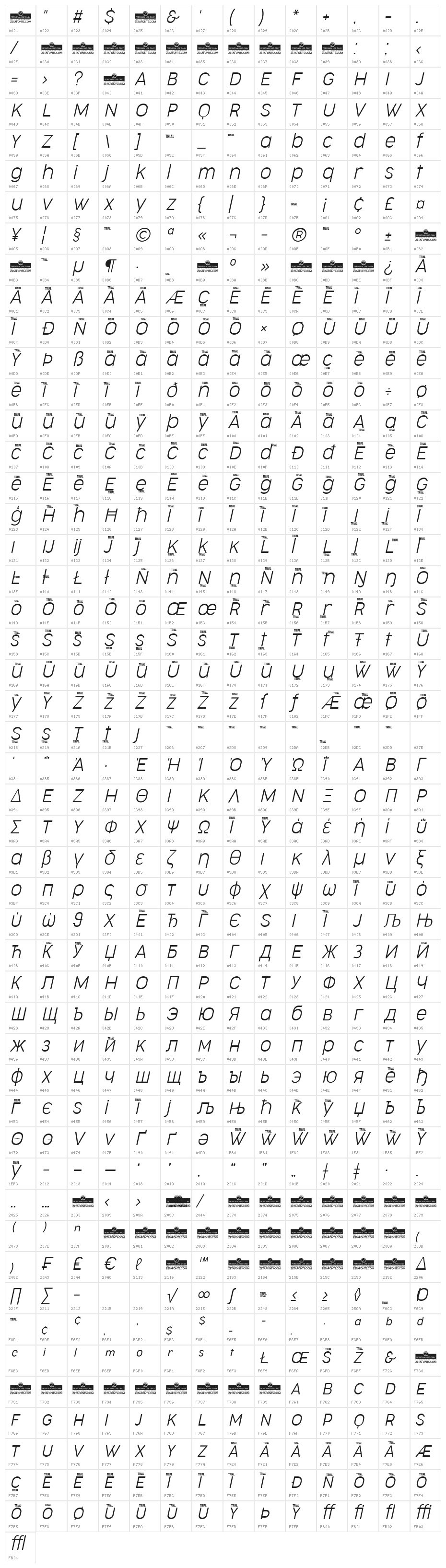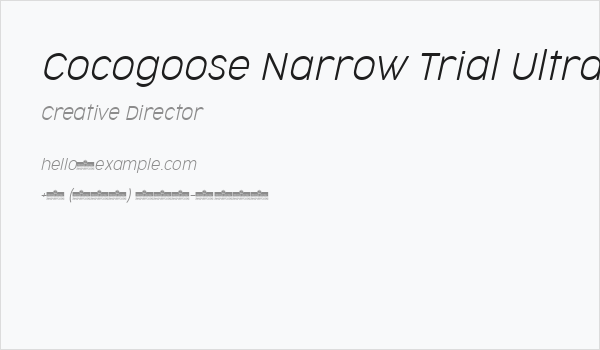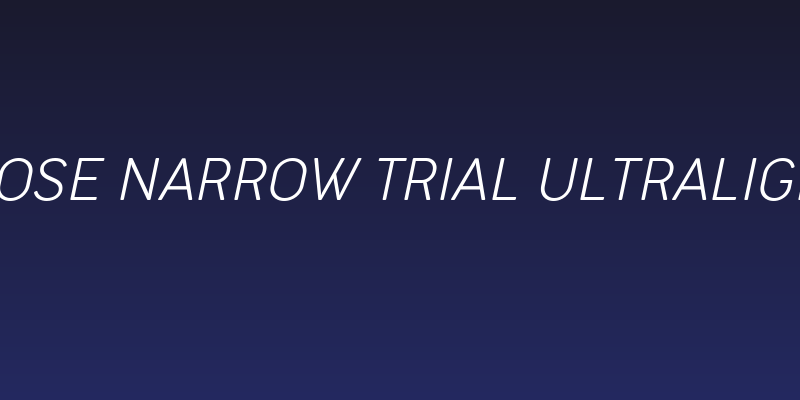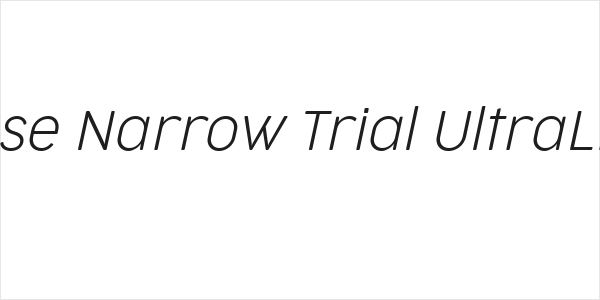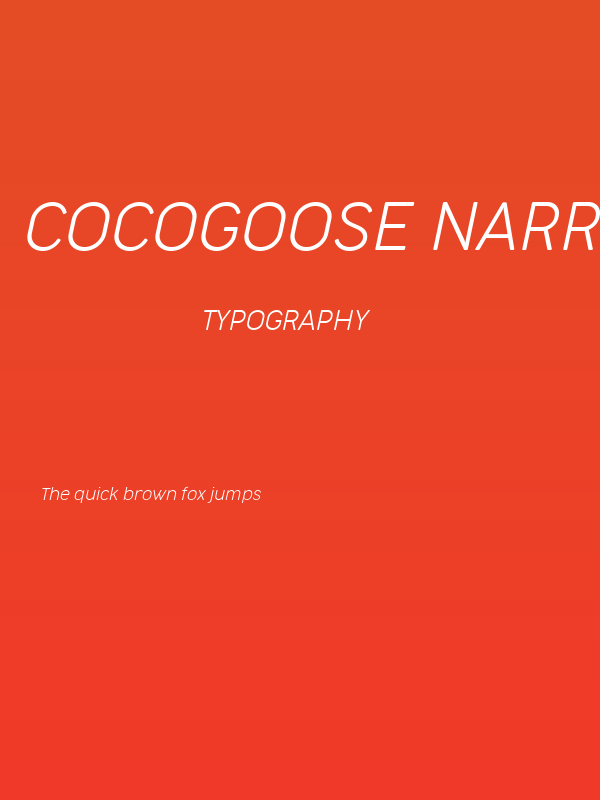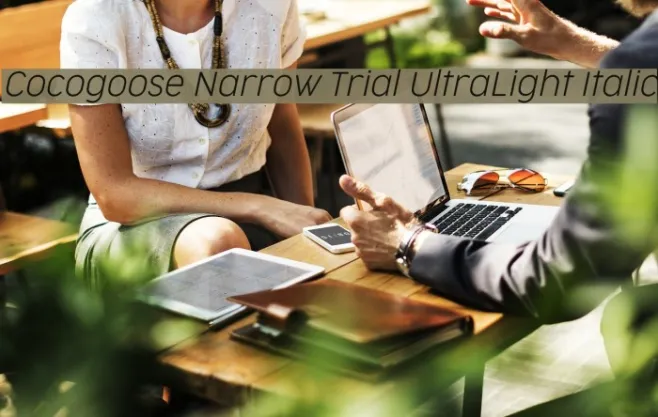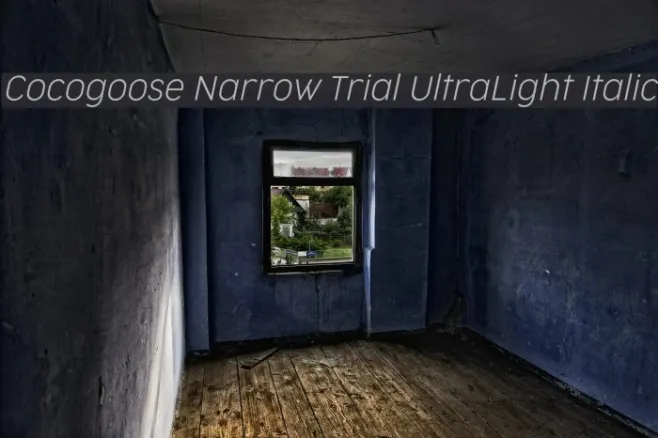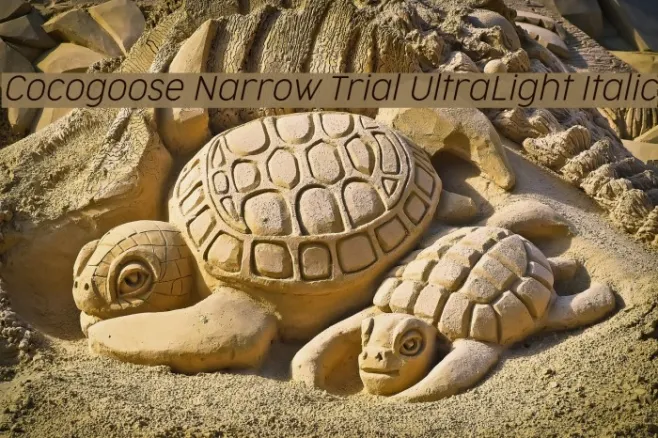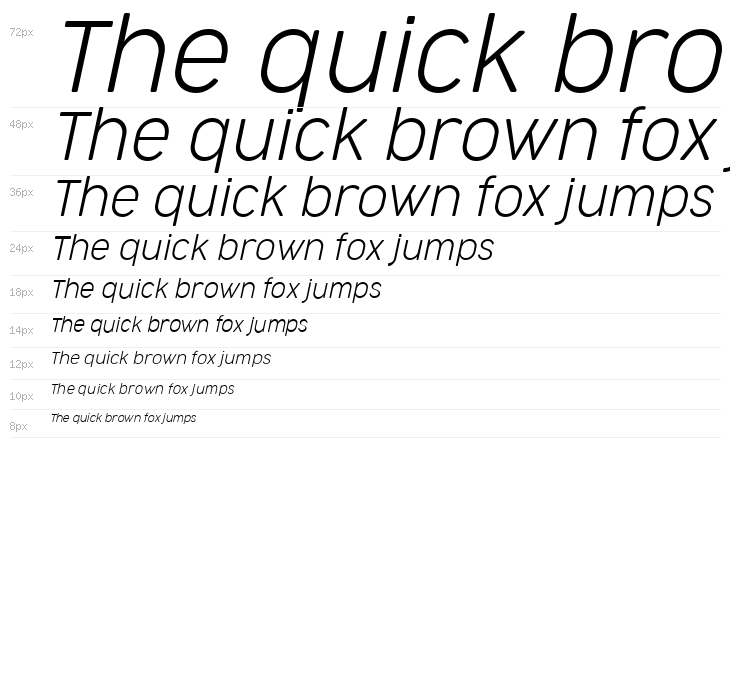
Cocogoose Narrow Trial UltraLight Italic Font
Cocogoose Narrow Trial UltraLight Italic Description
This font features a sleek, modern design with a narrow and ultra-light appearance. The italic style adds a dynamic and forward-leaning aspect to the characters, enhancing its contemporary feel. The uppercase and lowercase letters are well-proportioned, maintaining clarity and readability. The numerals and special characters are consistent with the overall aesthetic, providing a cohesive look. The font's clean lines and minimalistic approach make it suitable for various design applications where a modern and elegant touch is desired.